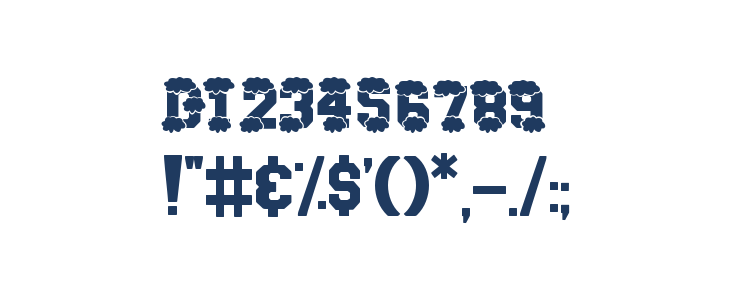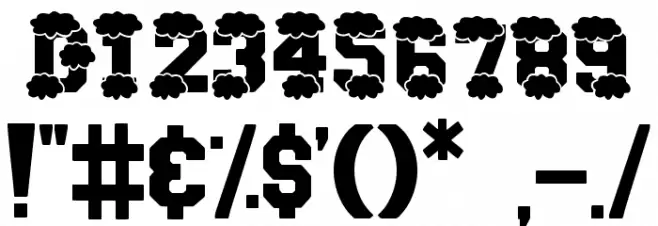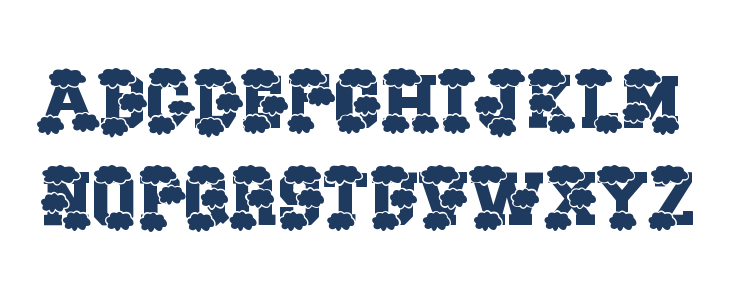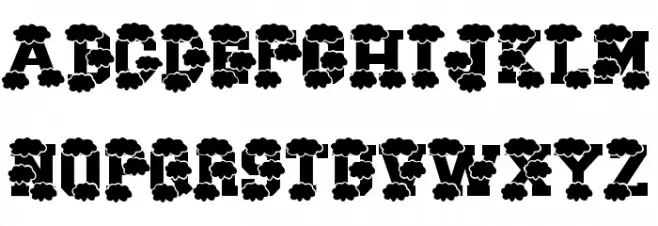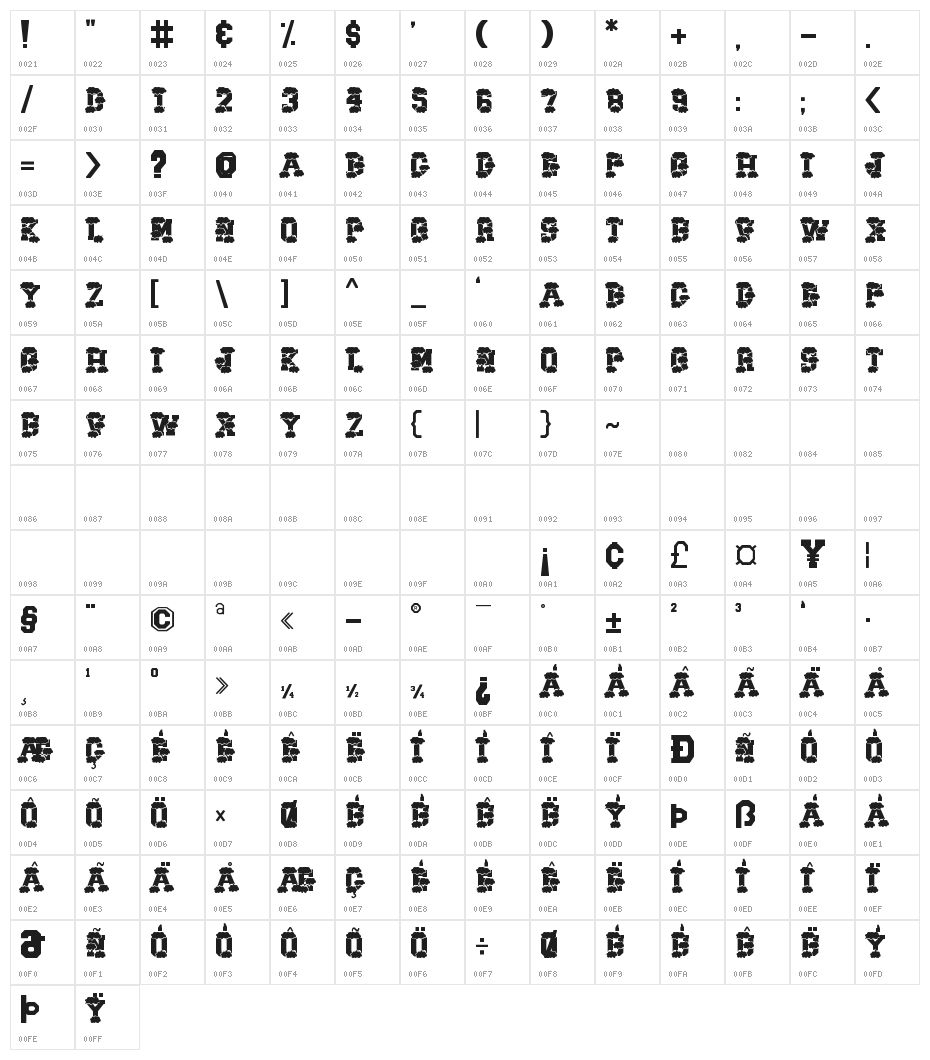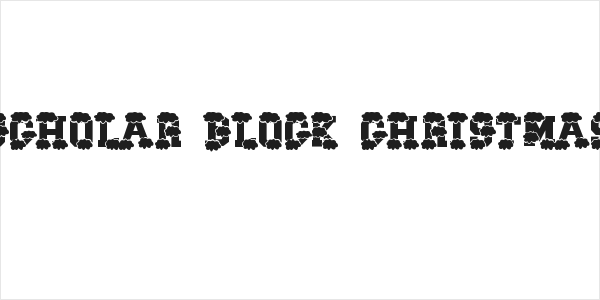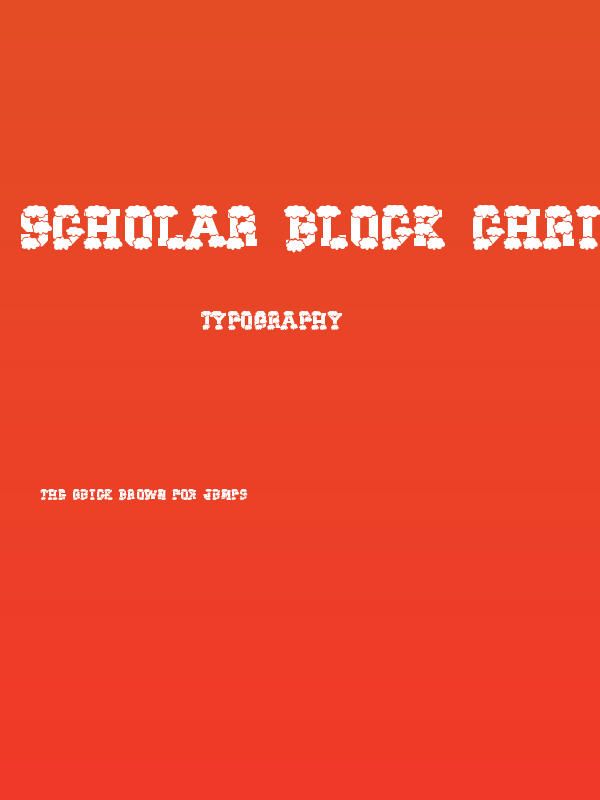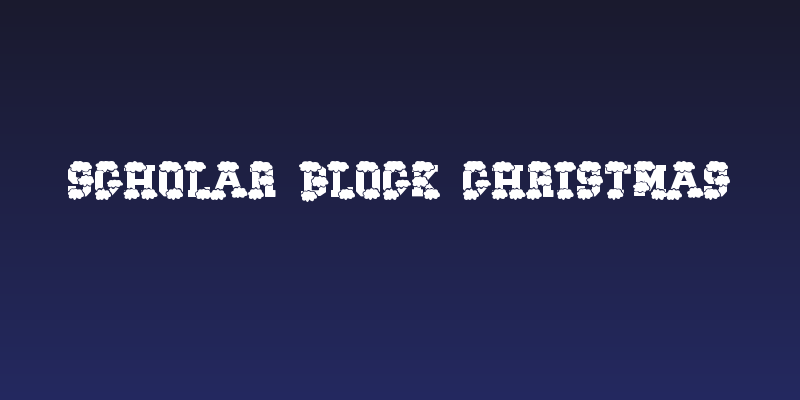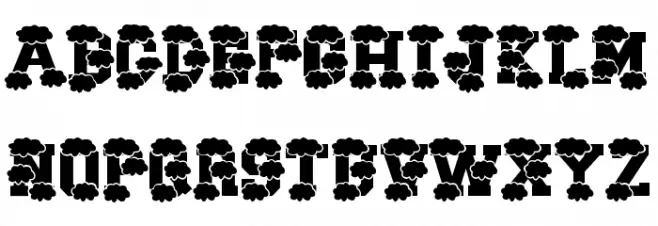
Scholar Block Christmas Font
A bold, blocky decorative font with playful cloud or snow-like embellishments on each character, evoking a festive and whimsical holiday feel. The characters are uppercase and highly stylized, with strong geometric shapes and heavy weight.
| Overall Style | Decorative, Festive, Playful |
| Use Case | Headlines, Posters, Holiday-themed graphics, Logos |
| Proposed Projects | Holiday cards, Christmas posters, festive banners, childrenΓ’β¬β’s event materials, party invitations. |